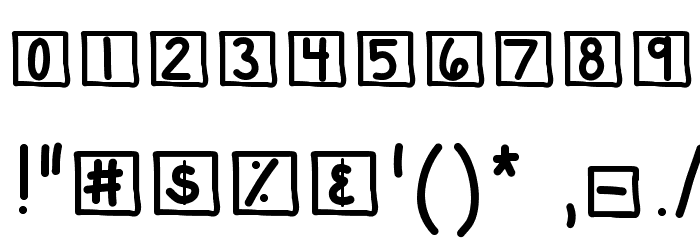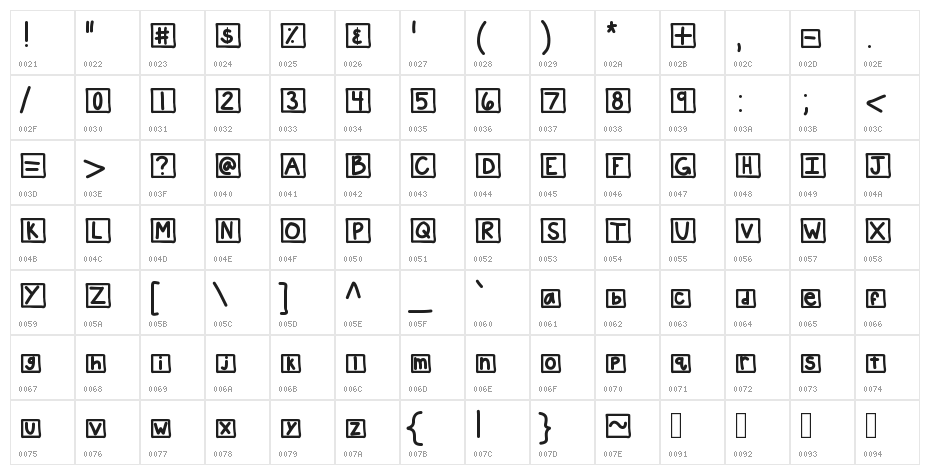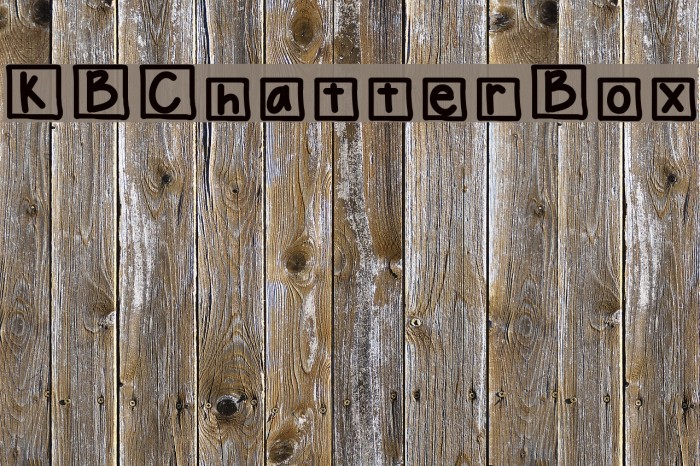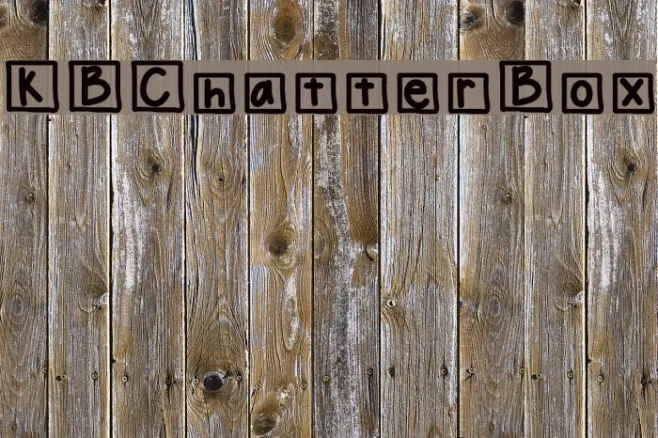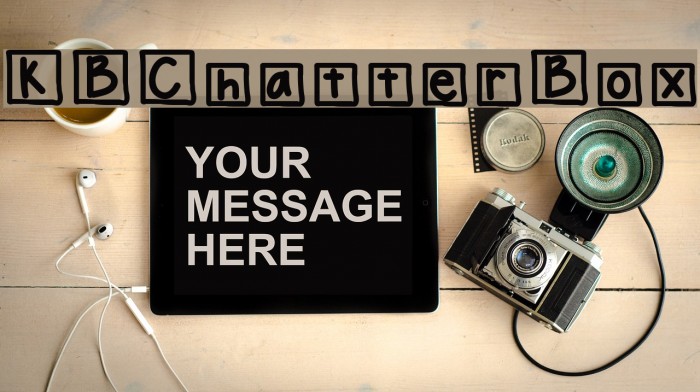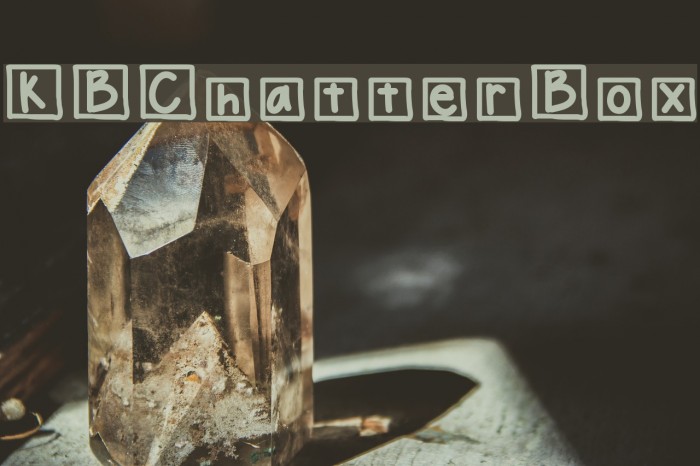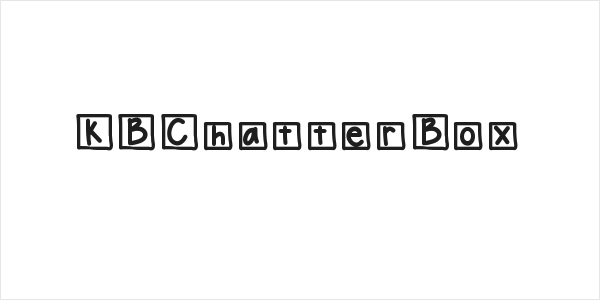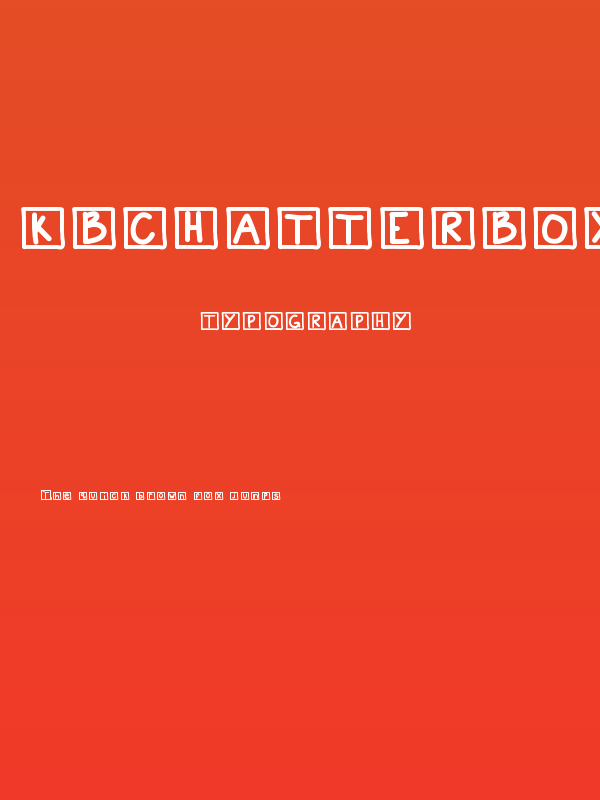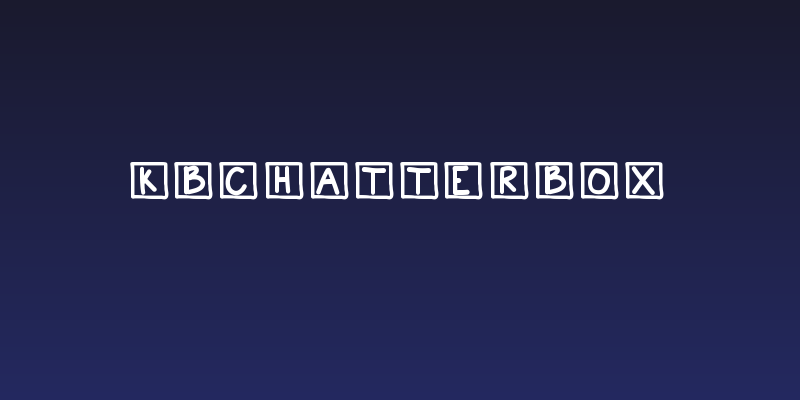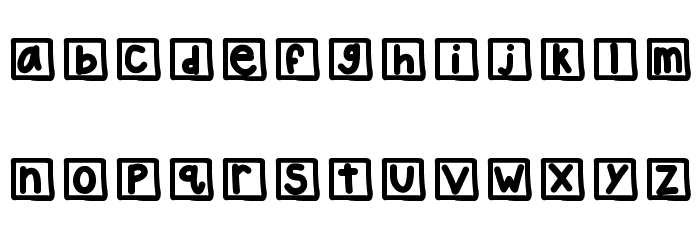
KBChatterBox Font
KBChatterBox Description
This playful and quirky font features bold, hand-drawn characters enclosed within irregular, square-like outlines. Each letter and number is uniquely styled, giving a sense of spontaneity and creativity. The font's design is reminiscent of doodles or comic book lettering, with a casual and informal appearance. The characters are slightly uneven, adding to the charm and individuality of the font. It includes a full set of uppercase and lowercase letters, numbers, and a variety of special characters, all maintaining the same whimsical style. The enclosed nature of each character creates a distinct and cohesive look, making it stand out in any design.
| Overall Style | Playful, Quirky |
| Proposed Projects | Ideal for comic books, children's books, playful branding, and creative posters. |